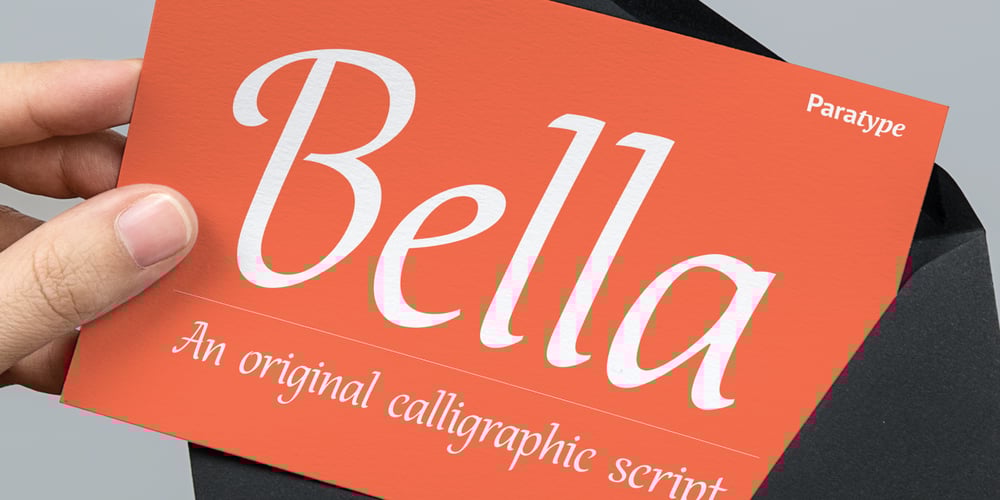
Bella Font Family was designed by Natalia Vasilyeva and published by ParaType. Bella contains 1 styles and family package options. An original calligraphic script by Natalya Vasilyeva. Licensed by ParaType in 2003. For use in advertising and display typography.